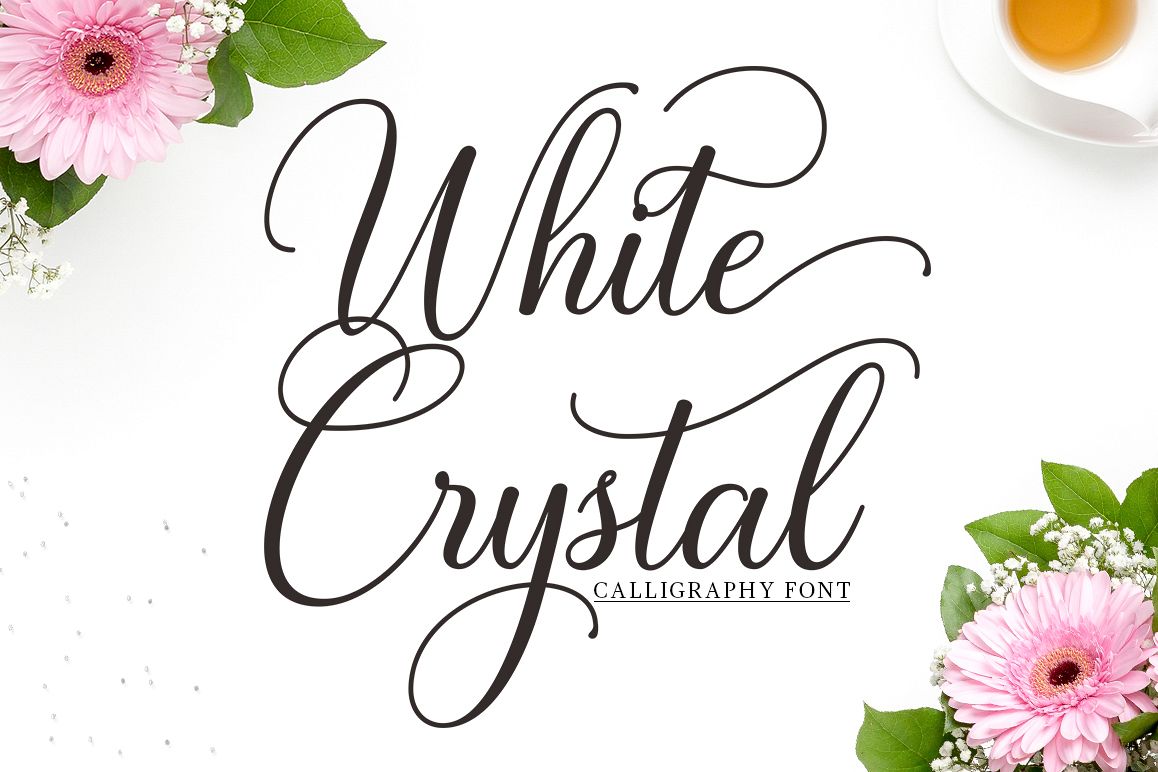
White Crystal Script
WhiteCrystalScript-Regular
Hello Font Lovers, I want to introduce my latest font that is ” White Crystal Script”.White Crystal is a modern calligraphy font that features a varying baseline, smooth line, classic and elegant touch. Can be used for various purposes.such as headings, signature, logos, wedding invitation, t-shirt, letterhead, signage, lable, news, posters, badges etc.
White Cristal features 320+ glyphs and 146 alternate characters. including initial and terminal letters, alternates, ligatures and multiple language support.